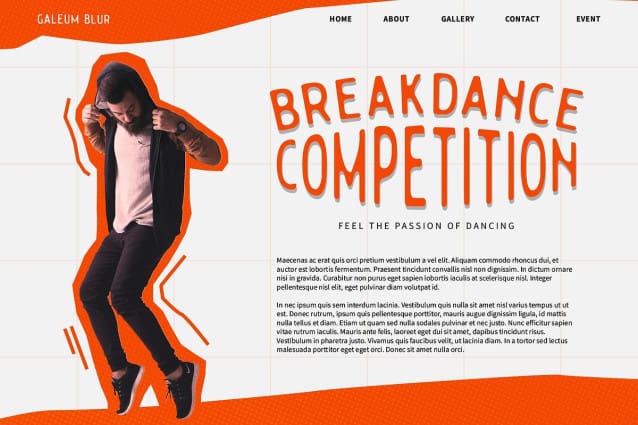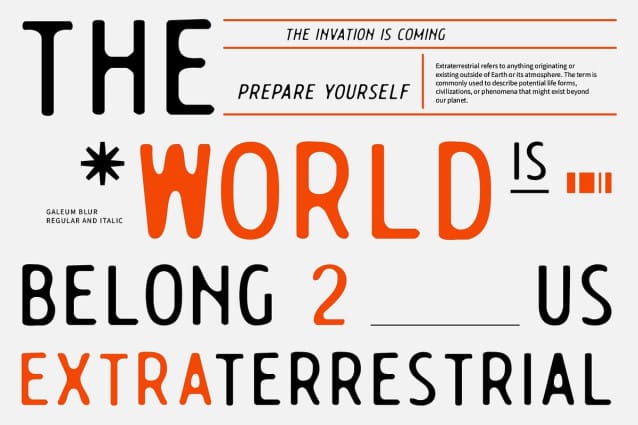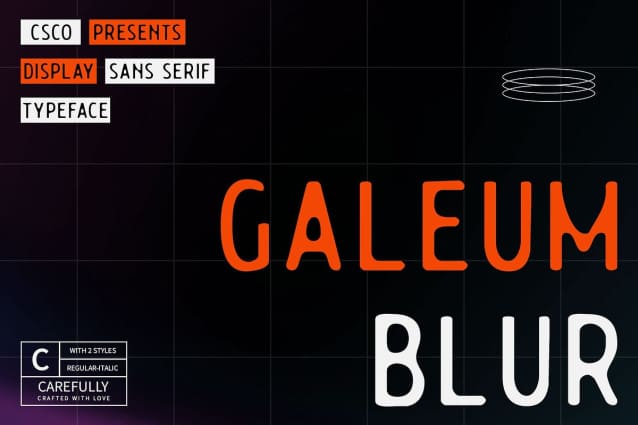
Galeum Blur Font
Galeum Blur Font is a modern sans-serif font that merges contemporary design with a sophisticated, futuristic aesthetic. Its clean lines and streamlined appearance make it a perfect choice for high-tech and stylish applications, offering a polished and refined look.
Advanced Blur Effect for Visual Depth The advanced blur effect in Galeum Blur adds a unique dimension to your designs, enhancing visual depth and intrigue. This subtle yet impactful effect provides a sense of movement and modernity, making the font stand out in any context.
Ideal for High-Tech and Stylish Applications Perfect for high-tech projects, branding, and stylish editorial designs, Galeum Blur combines functionality with a touch of elegance. Its sleek and modern appearance makes it versatile for a range of applications, from futuristic web designs to sophisticated promotional materials.
Elevate Your Designs with a Polished Look Choose Galeum Blur to elevate your designs with its contemporary style and advanced blur effect. Whether you’re working on cutting-edge tech branding, sleek web interfaces, or elegant print materials, this font provides the perfect blend of clean aesthetics and innovative flair.